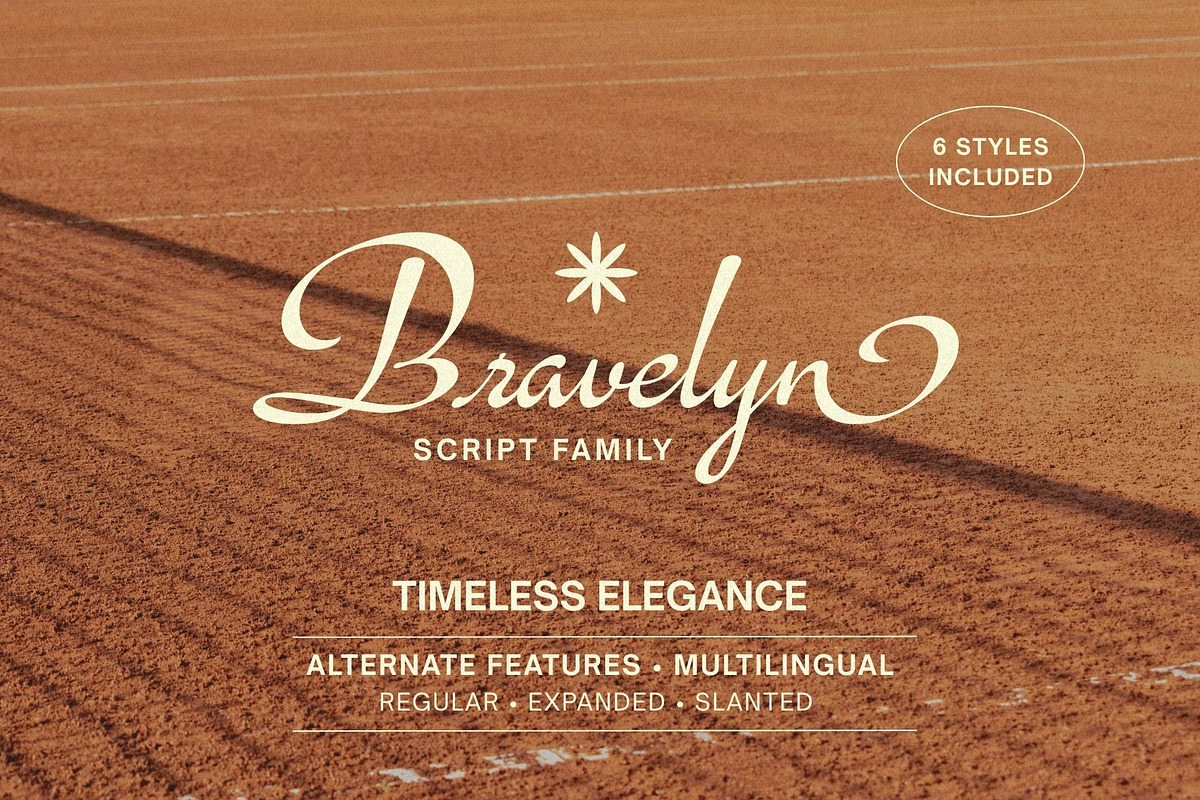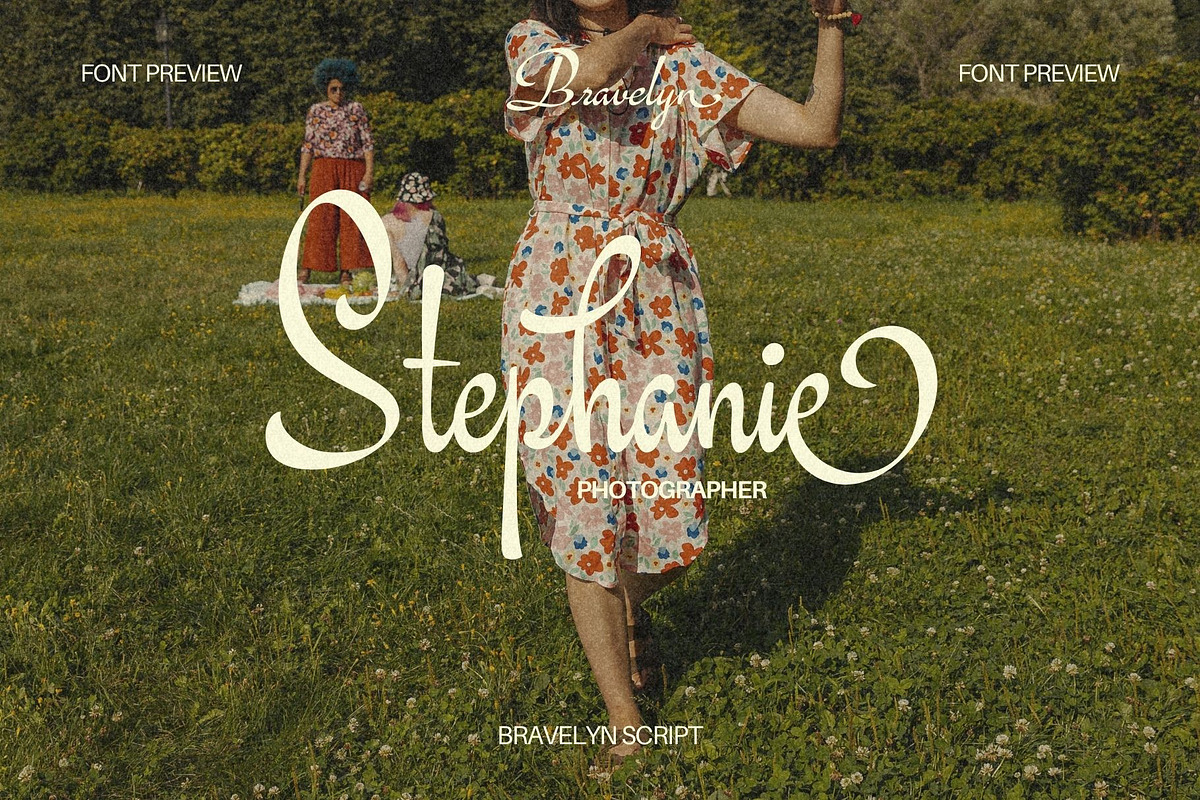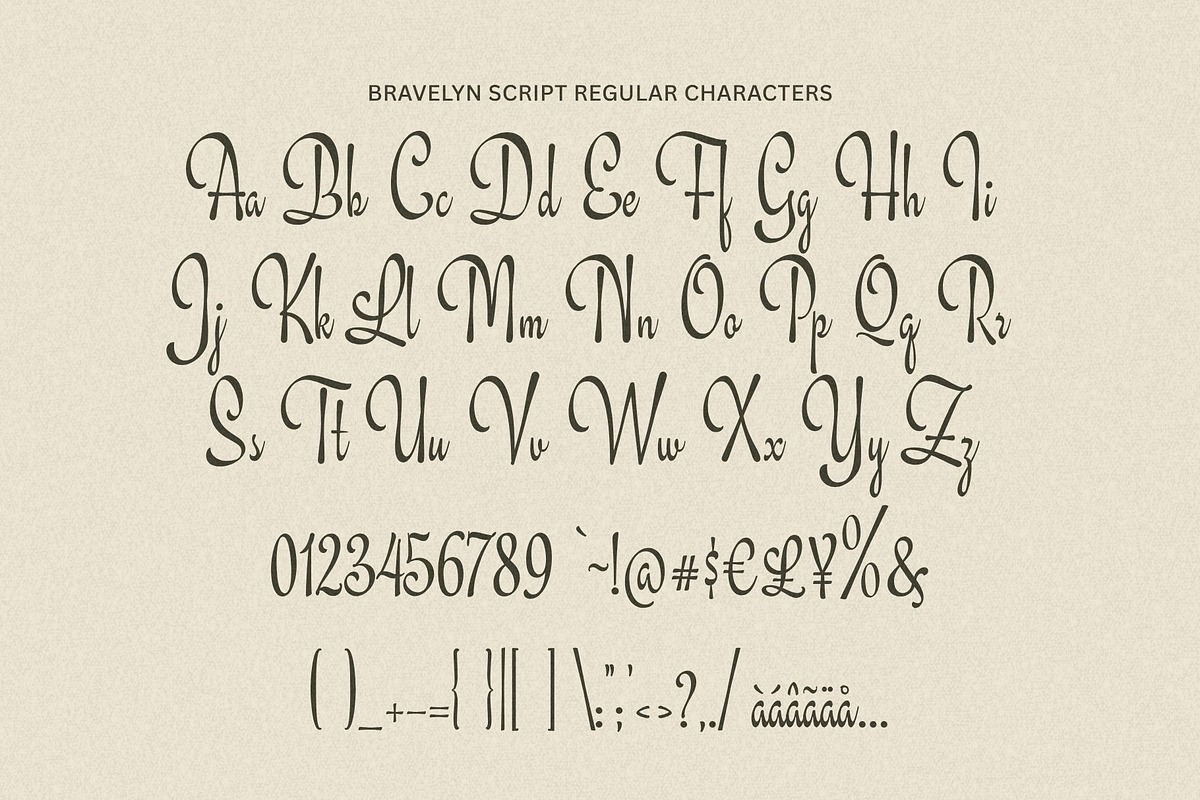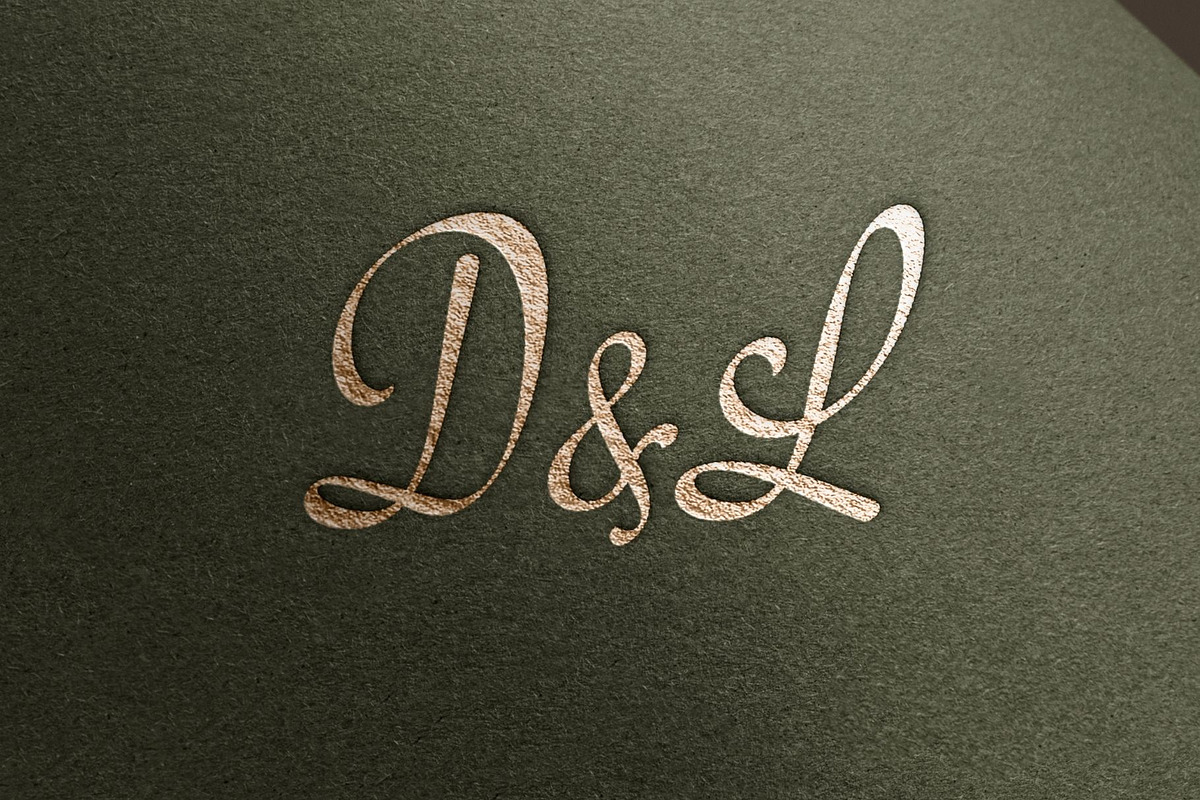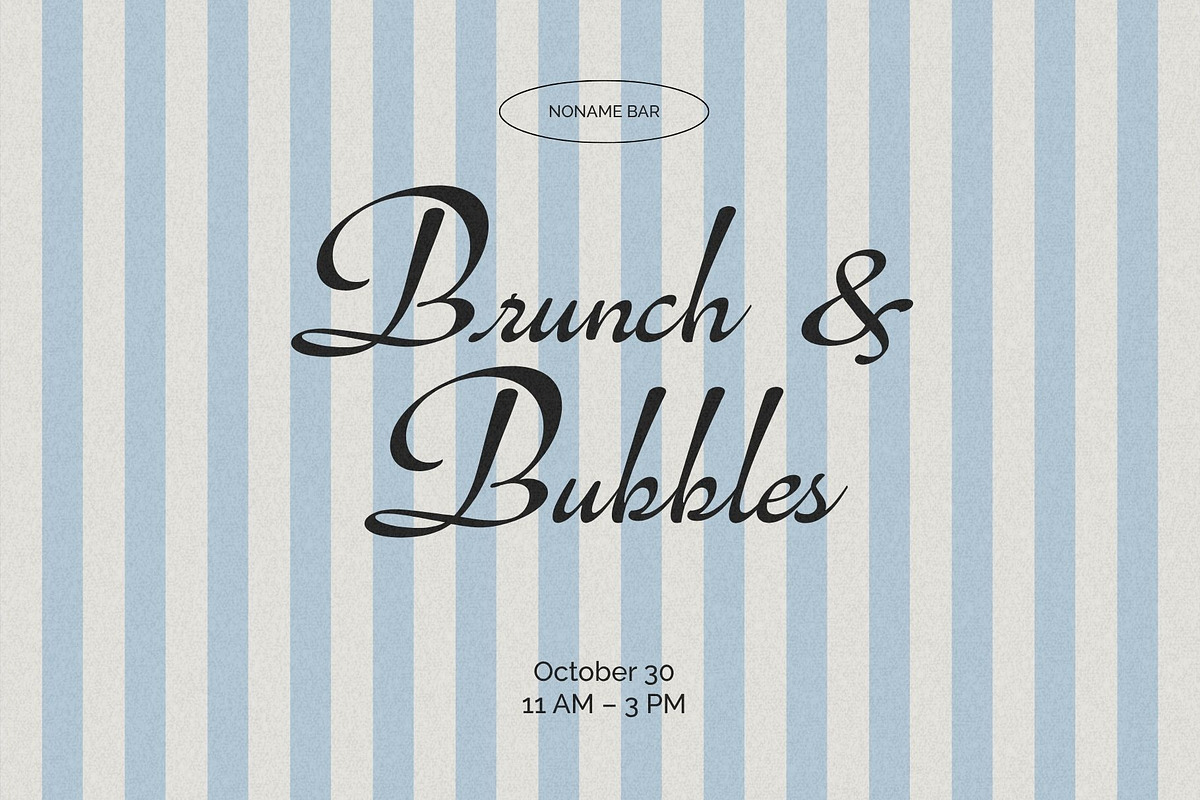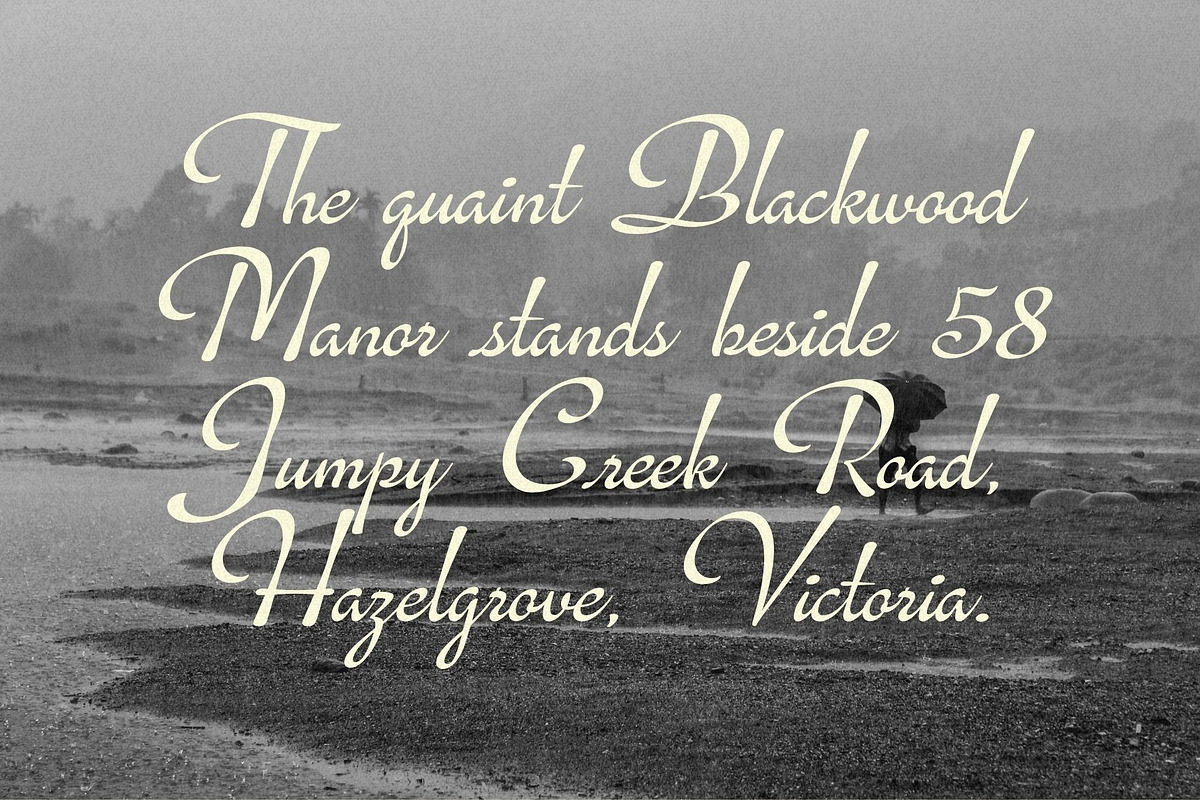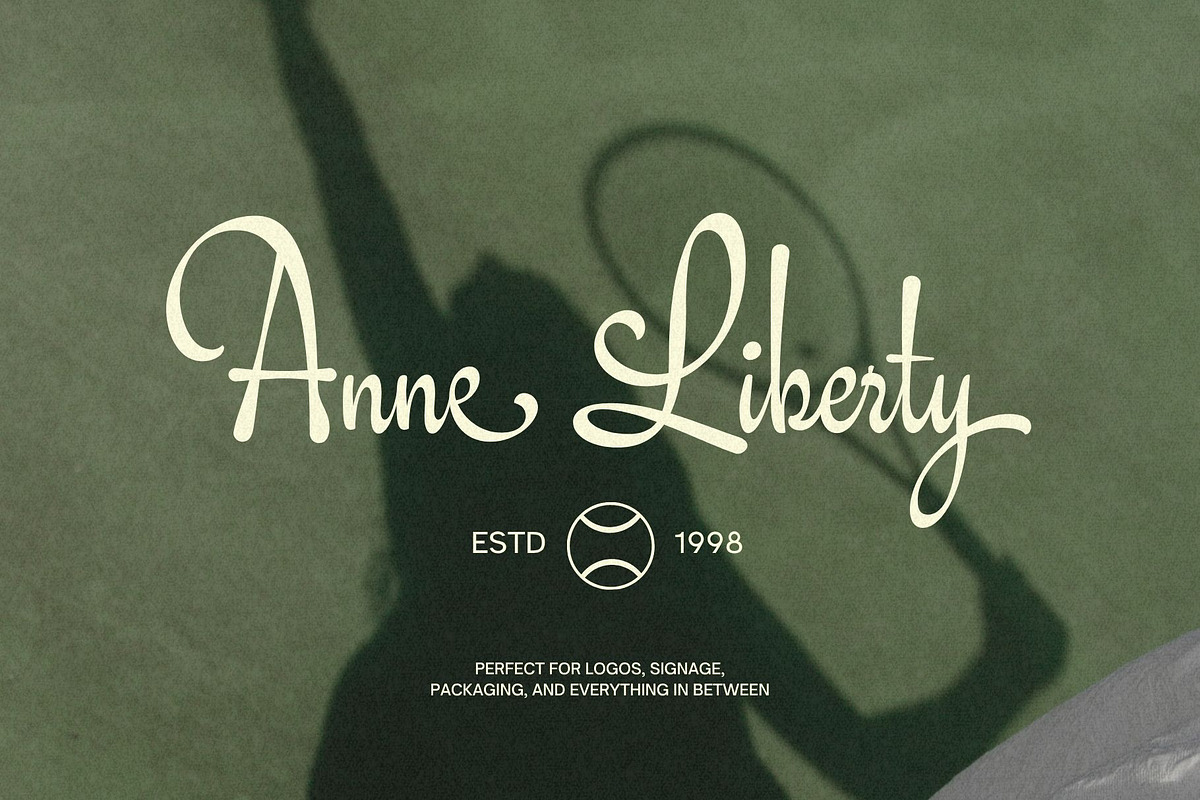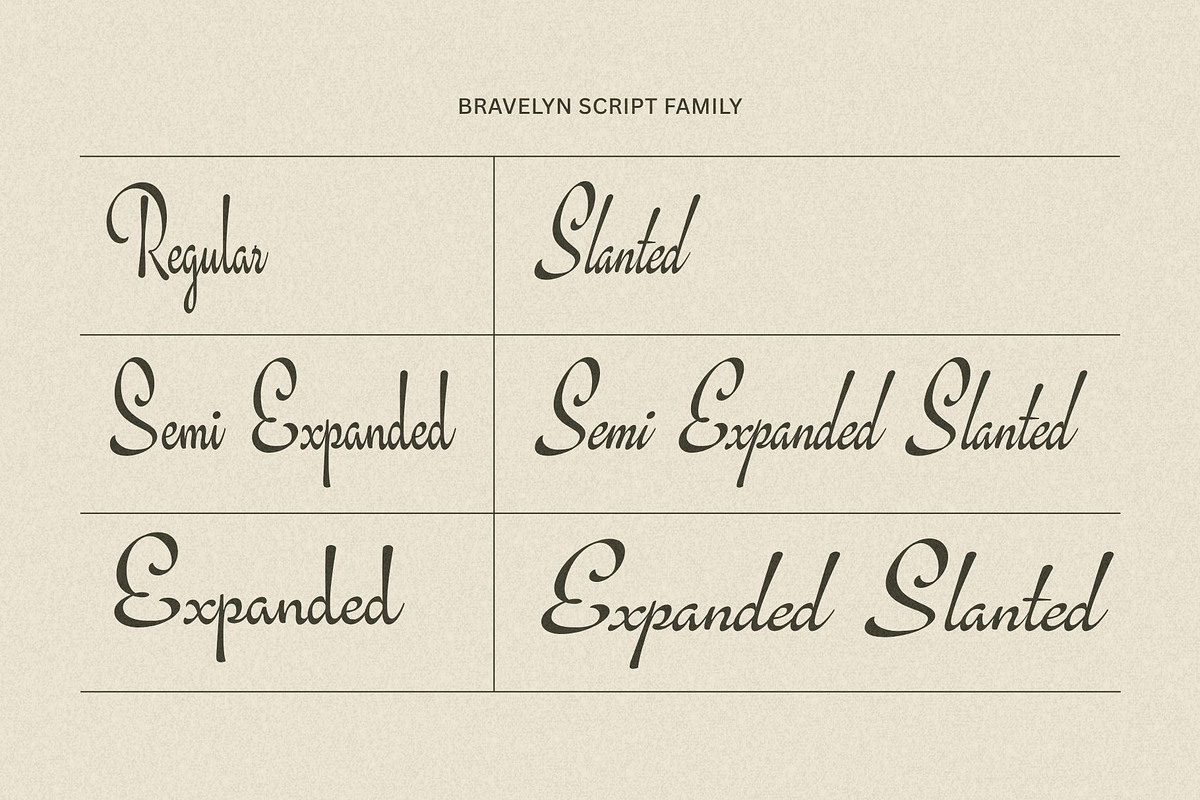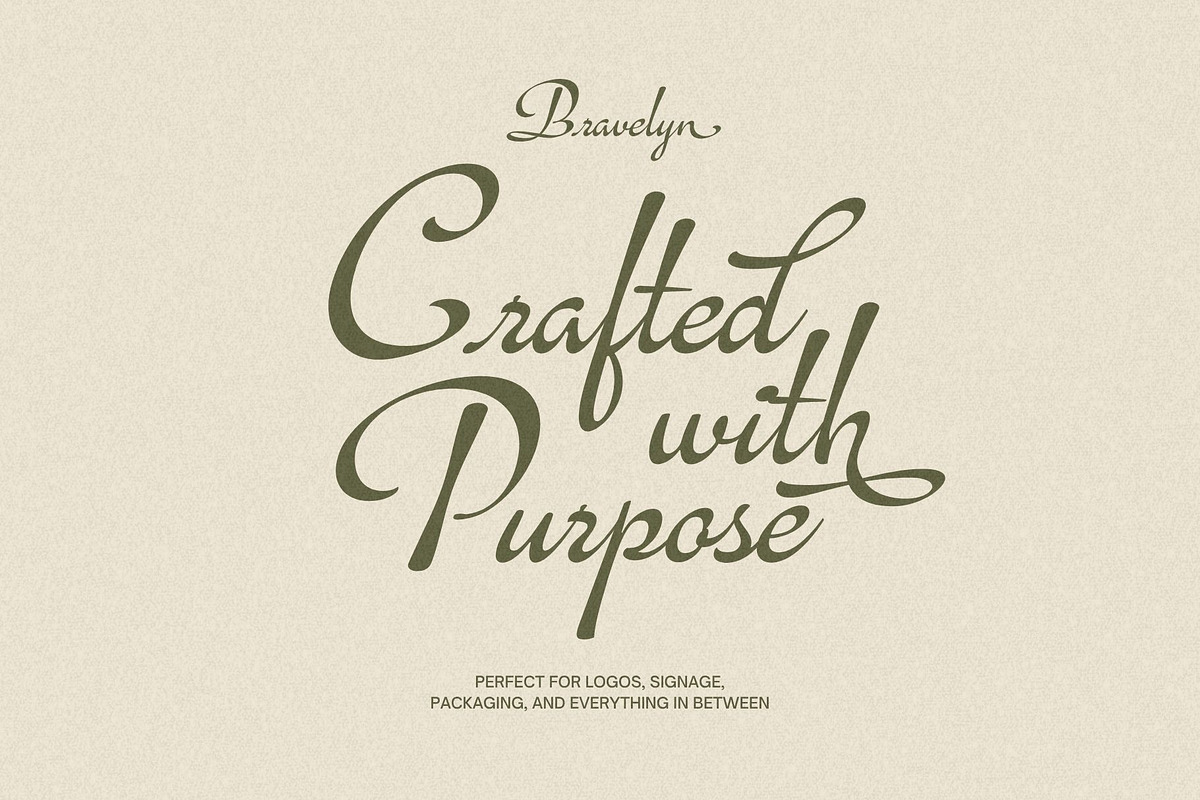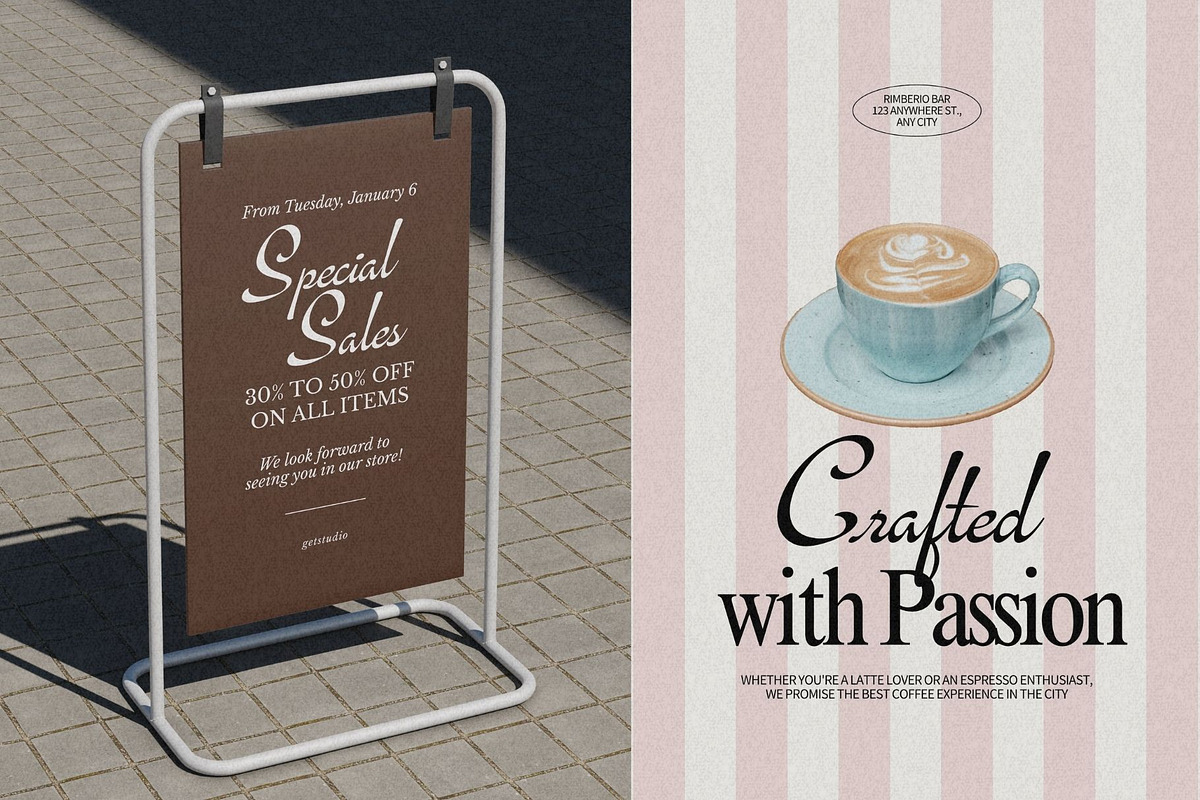
Bravelyn Script Family
Bravelyn is a graceful script family inspired by classic handwriting, vintage romance, and refined editorial aesthetics. Designed with smooth flowing curves and delicate details, Bravelyn brings a natural sense of sophistication to every word it touches.
Whether you're creating luxury branding, wedding stationery, product packaging, social media content, or signature logos, Bravelyn offers the flexibility to express your ideas beautifully and effortlessly.
The family includes six carefully crafted styles, allowing you to move seamlessly between classic, expanded, and slanted compositions while maintaining a cohesive and elegant look.
From intimate handwritten notes to premium brand identities, Bravelyn helps transform ordinary text into memorable visual statements.
Included Styles
Slanted
Semi Expanded
Semi Expanded Slanted
Expanded
Expanded Slanted
Beautiful Swashes
Smooth Connections
Easy Access OpenType Features
Luxury Branding
Wedding Invitations
Beauty & Fashion Brands
Editorial Design
Social Media Content
Photography Watermarks
Signature Logos
Boutique Advertising